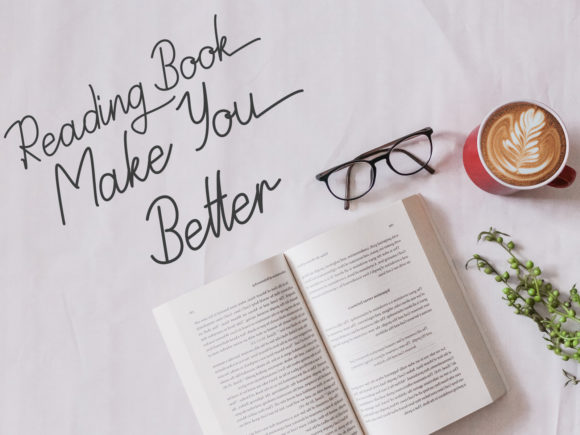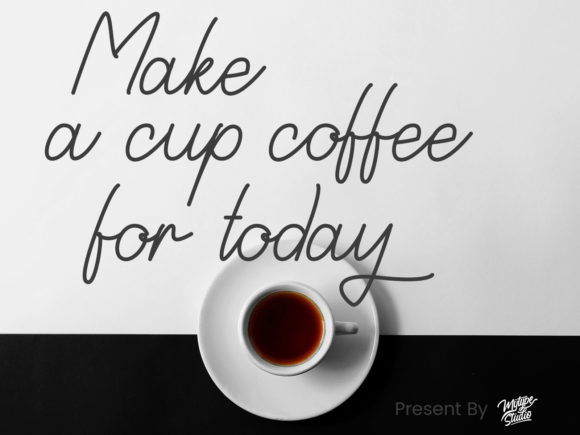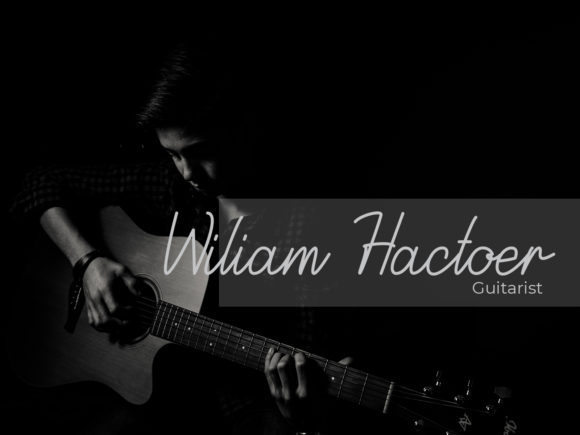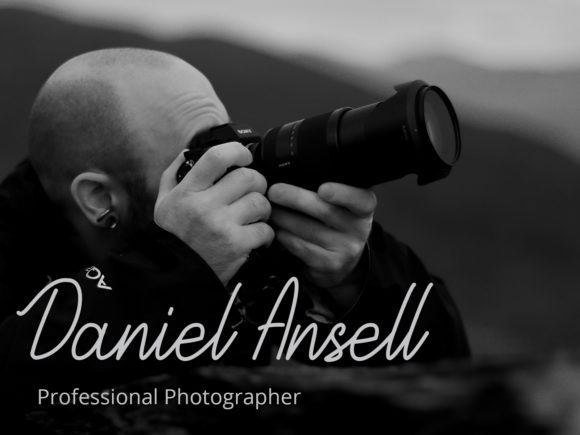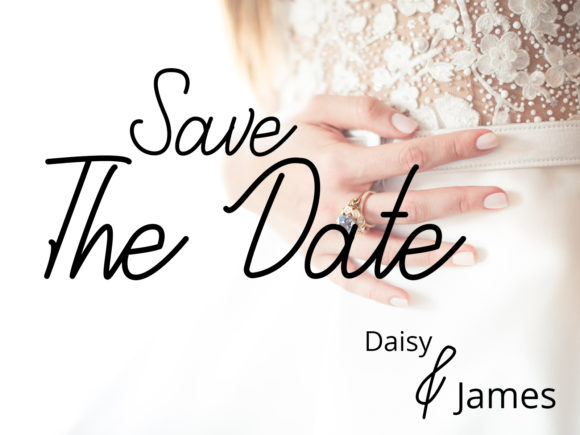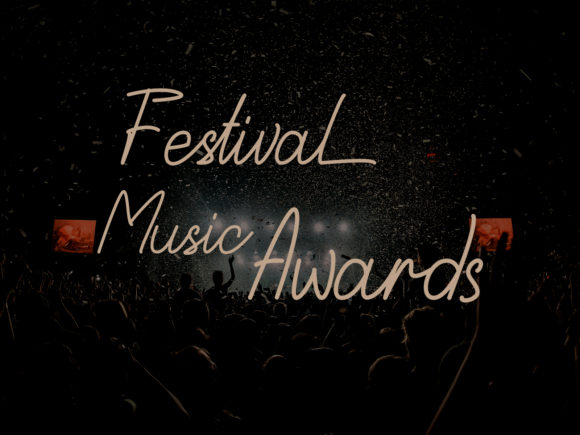
Introducing Astida Font: Elevate Your Design Projects with Contemporary Charm
Are you looking for a font that can add a touch of elegance and sophistication to your design projects? Look no further than Astida Font, a stunning handwritten font that is sure to elevate your designs with its contemporary charm. In this article, we’ll take a closer look at Astida Font, its features, and how it can be used to enhance your design projects.
What is Astida Font?
Astida Font is a beautiful handwritten font that is perfect for designers and crafters looking to add a personal touch to their projects. With its unique and elegant lettering style, Astida Font is ideal for a wide range of design applications, including signatures, quotes, posters, branding, packaging, illustration, social media, and more.
Key Features of Astida Font
Astida Font comes with a range of features that make it a versatile and user-friendly font. Some of its key features include:
- PUA Encoding: Astida Font is PUA encoded, which means you can access all of the glyphs and swashes with ease. This makes it easy to customize your designs and add a personal touch.
- Handwritten Style: Astida Font has a unique handwritten style that gives it a personal and elegant feel. It’s perfect for designers looking to add a touch of sophistication to their projects.
- Contemporary Charm: Astida Font has a contemporary charm that makes it perfect for modern design projects. Its unique lettering style is sure to grab attention and leave a lasting impression.
Uses of Astida Font
Astida Font is a versatile font that can be used for a wide range of design projects. Here are some of the ways you can use Astida Font:
- Signatures: Astida Font is perfect for creating elegant signatures that add a personal touch to your designs.
- Quotes: Use Astida Font to create inspiring quotes that grab attention and leave a lasting impression.
- Posters: Astida Font is ideal for creating eye-catching posters that showcase your message in a clear and elegant way.
- Branding: Use Astida Font to create a strong brand identity that reflects your values and personality.
- Packaging: Astida Font is perfect for packaging designs that require a touch of elegance and sophistication.
- Illustration: Use Astida Font to add a personal touch to your illustrations and make them stand out.
- Social Media: Astida Font is ideal for creating engaging social media posts that grab attention and drive engagement.
Benefits of Using Astida Font
There are many benefits to using Astida Font in your design projects. Here are some of the advantages of using this stunning font:
- Elegance and Sophistication: Astida Font adds a touch of elegance and sophistication to your designs, making them stand out from the crowd.
- Versatility: Astida Font is a versatile font that can be used for a wide range of design projects, from signatures to social media posts.
- Easy to Use: Astida Font is easy to use and customize, thanks to its PUA encoding and user-friendly design.
- Unique Style: Astida Font has a unique style that sets it apart from other fonts, making it perfect for designers looking to create something different.
In conclusion, Astida Font is a stunning handwritten font that is perfect for designers and crafters looking to elevate their design projects with contemporary charm. With its unique and elegant lettering style, Astida Font is ideal for a wide range of design applications, from signatures to social media posts. Its PUA encoding and user-friendly design make it easy to customize and use, and its versatility and elegance make it a valuable addition to any design project.